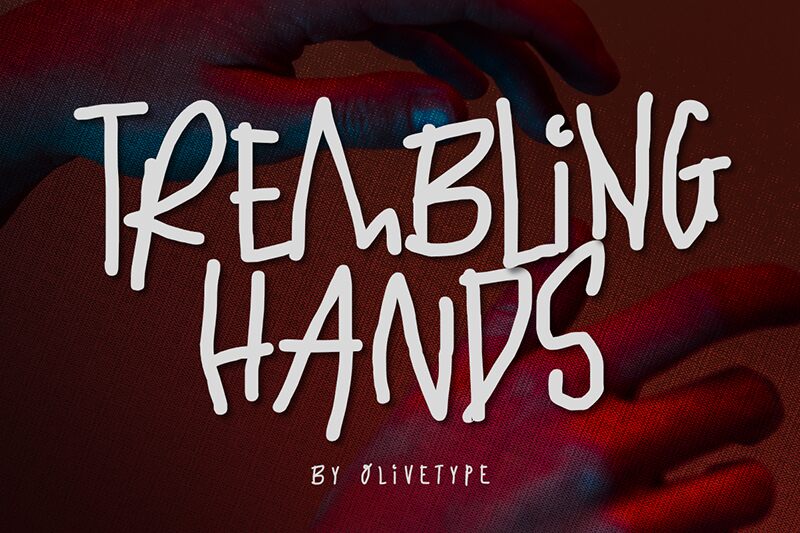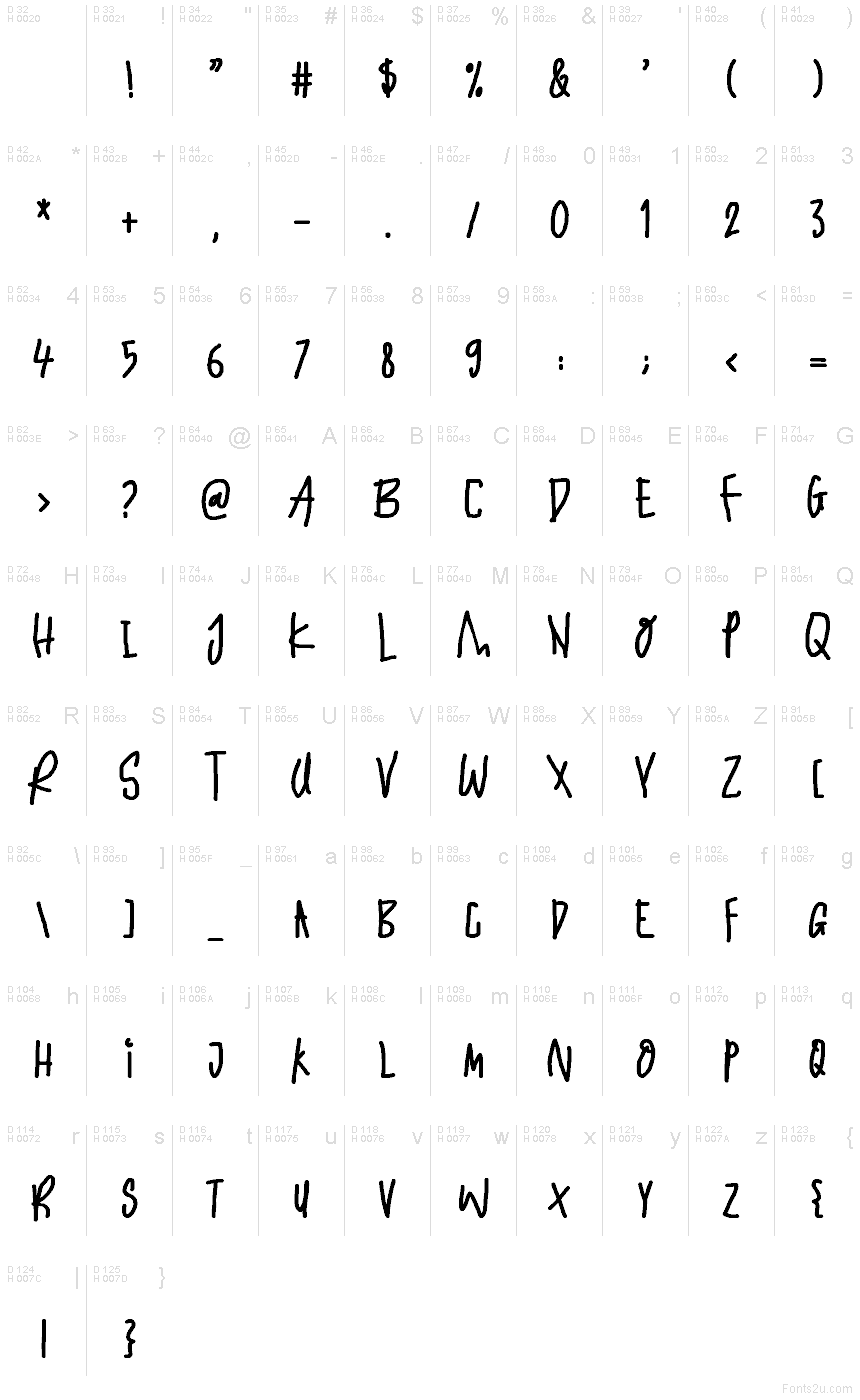
Trembling Hands font by Olivetype is a free handwritten typeface that buzzes with nervous energy. Tall, narrow letters wobble like fresh marker on rough paper, with inky edges and a jittery rhythm that feels urgent and human. The uneven cadence keeps eyes moving, giving headlines a scratchy, alive quality without turning messy.
Using Trembling Hands, you’ll get instant character for horror posters, indie film titles, zines, album art, haunted house flyers, and moody social graphics. This free font shines at larger sizes with a touch of extra letter spacing. For balance, pair it with a clean grotesque sans for body copy-let the shaky voice take the lead while the sans keeps things readable.